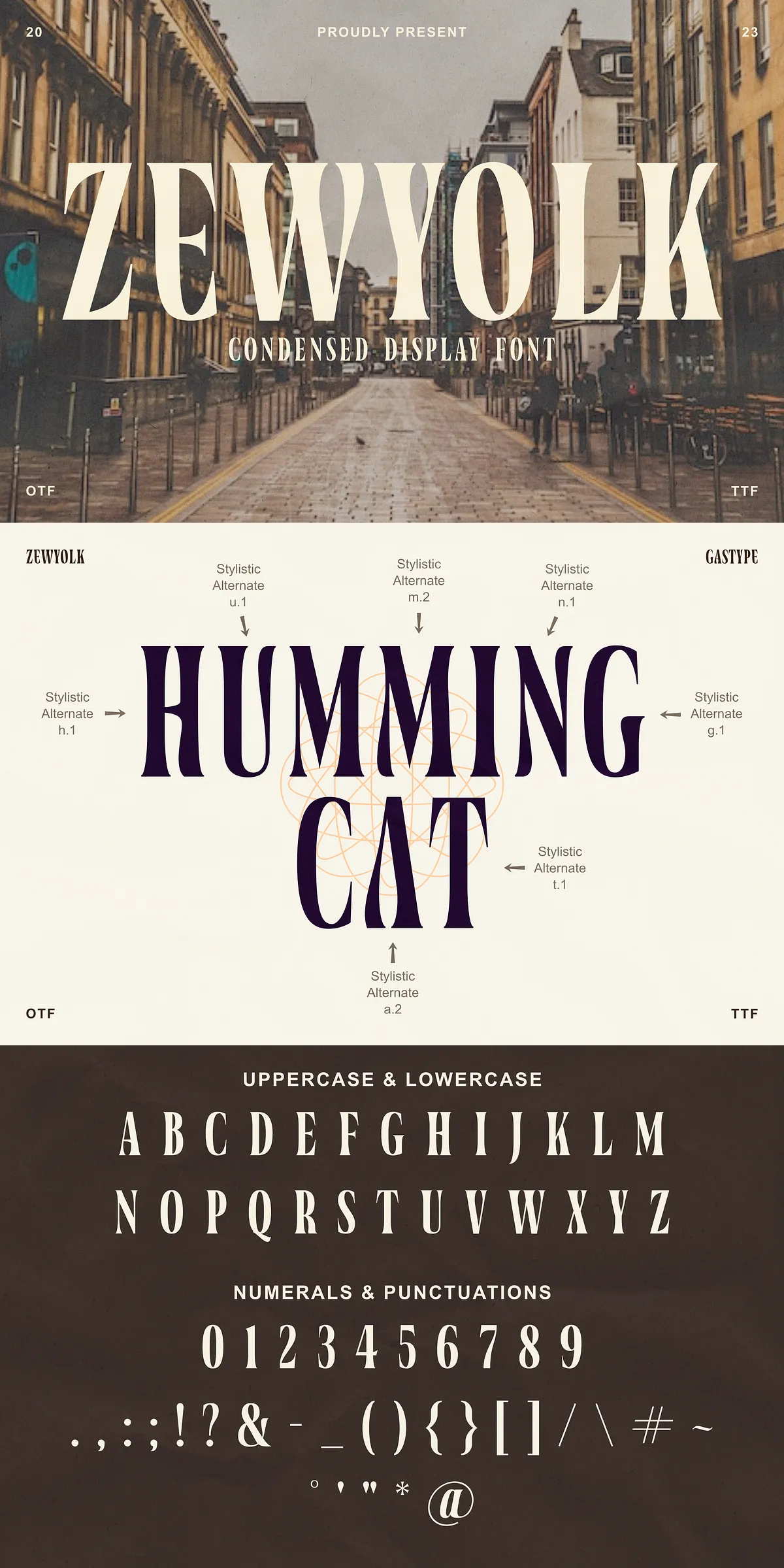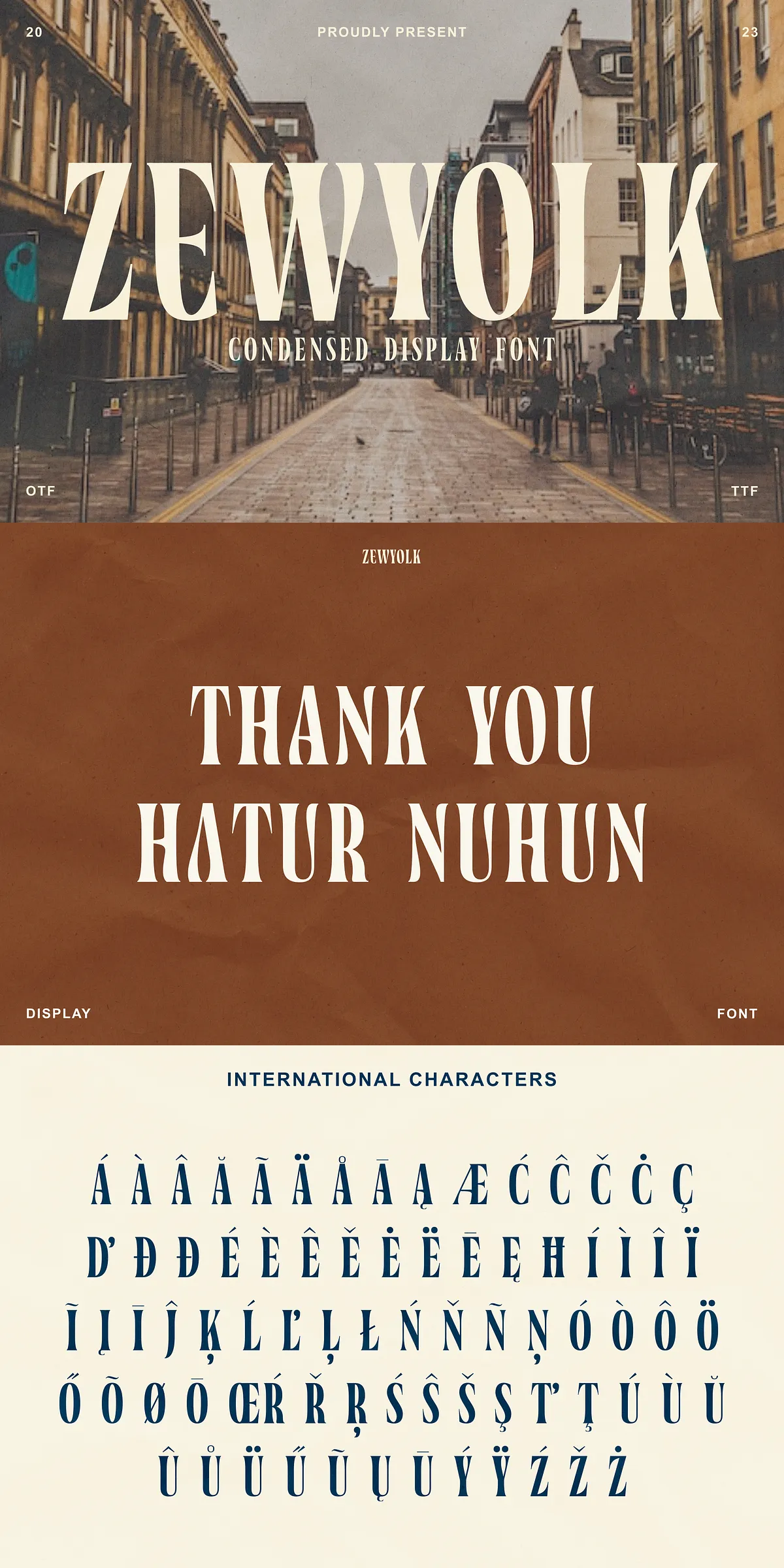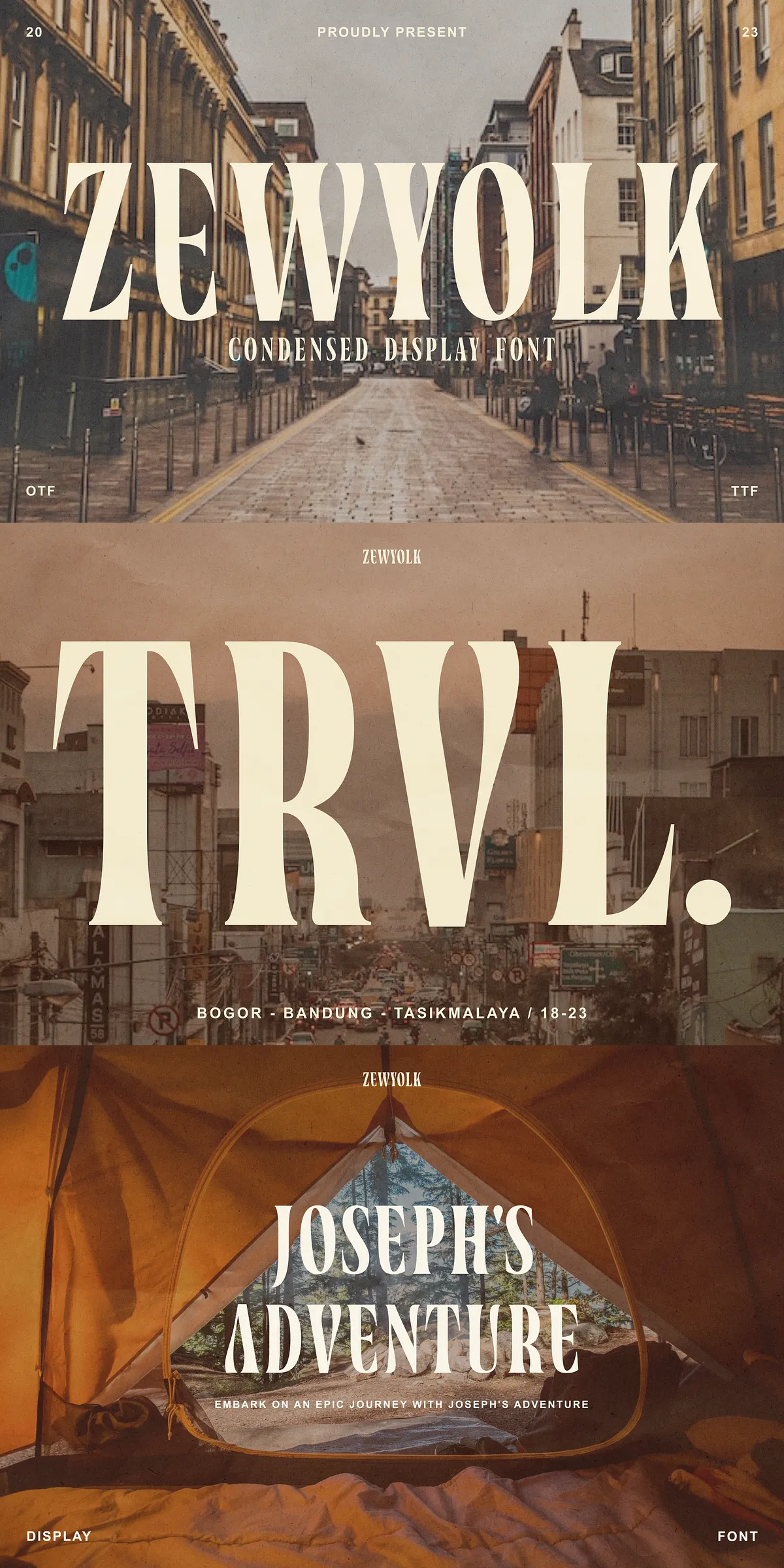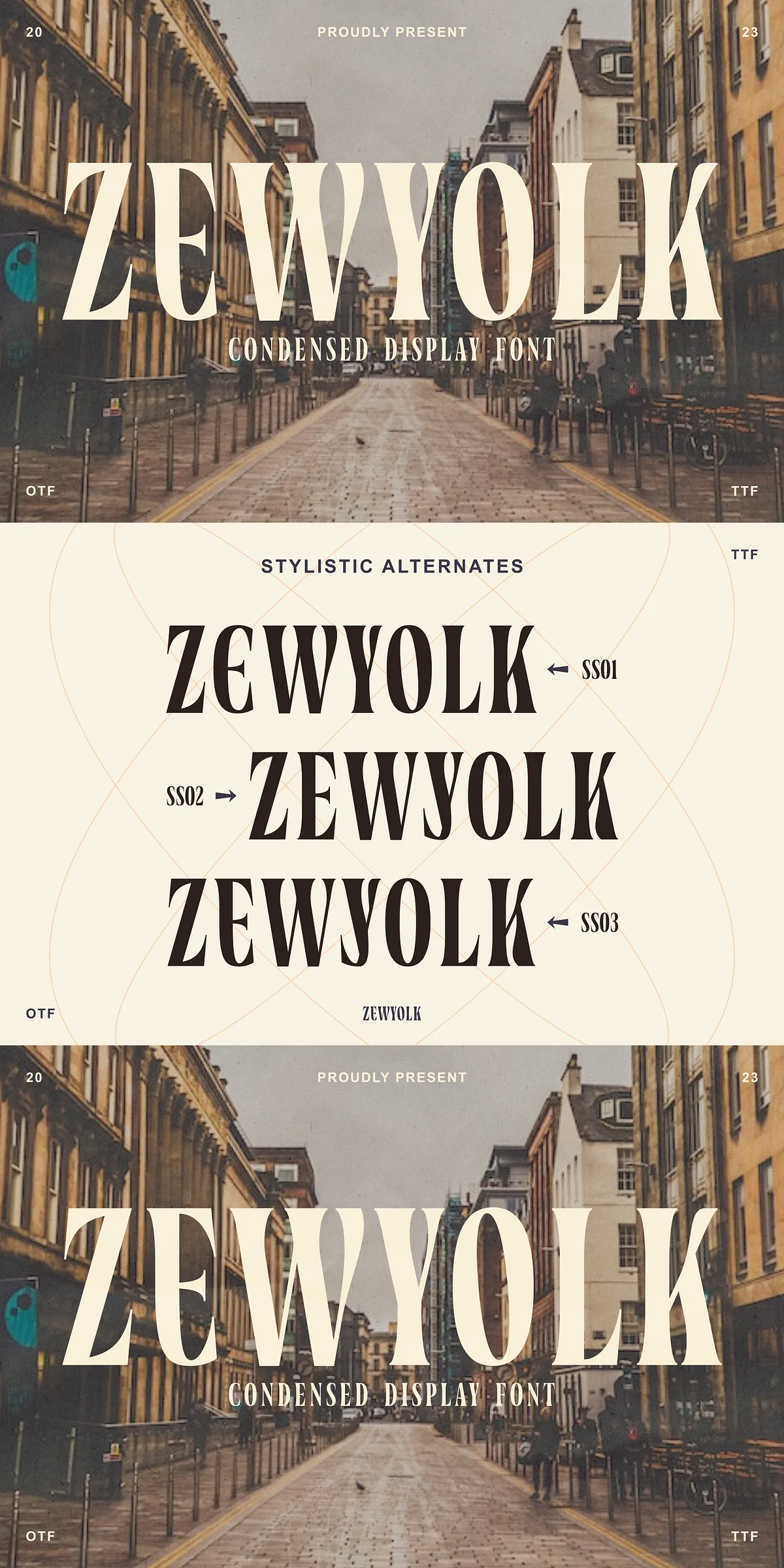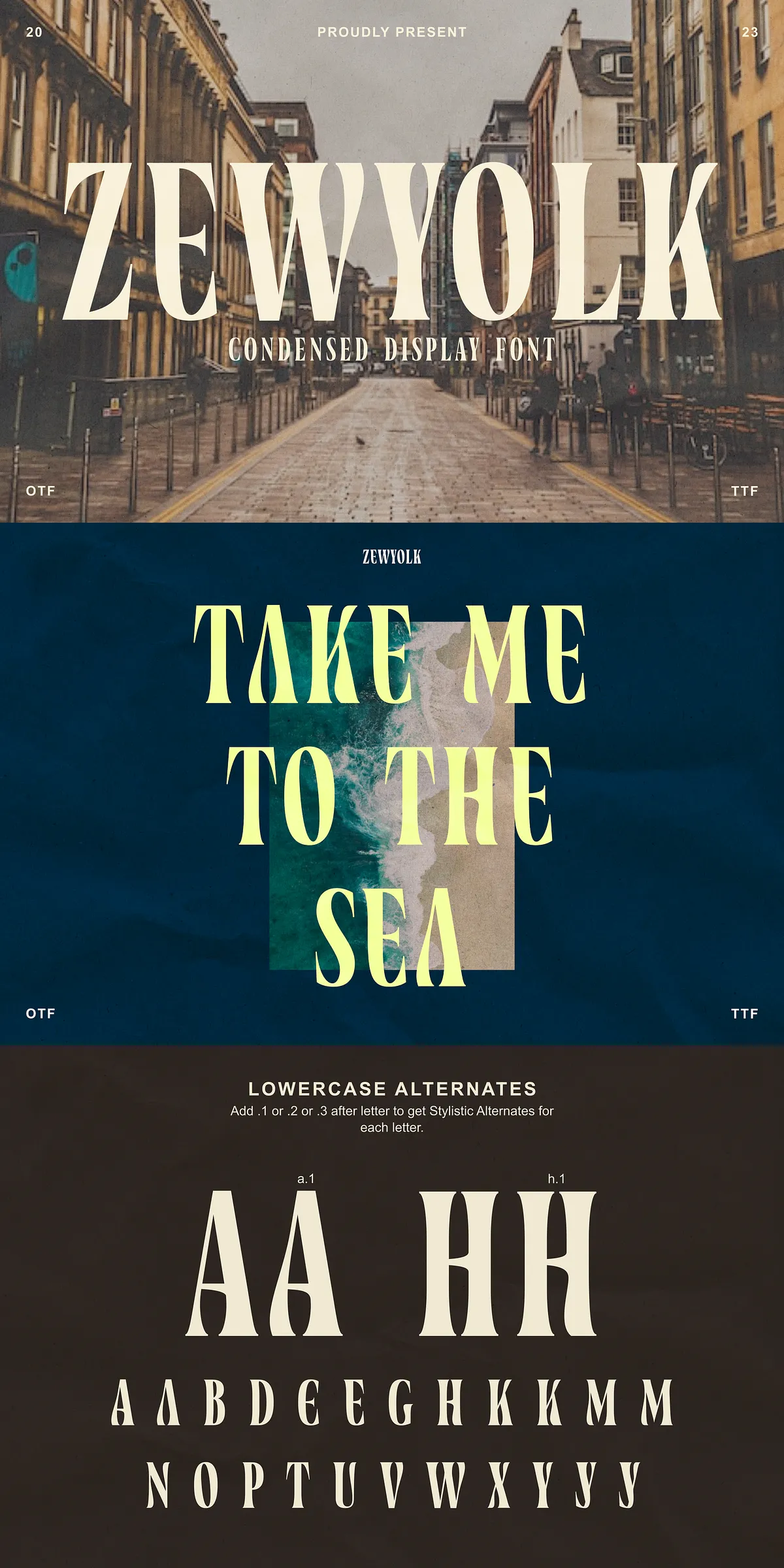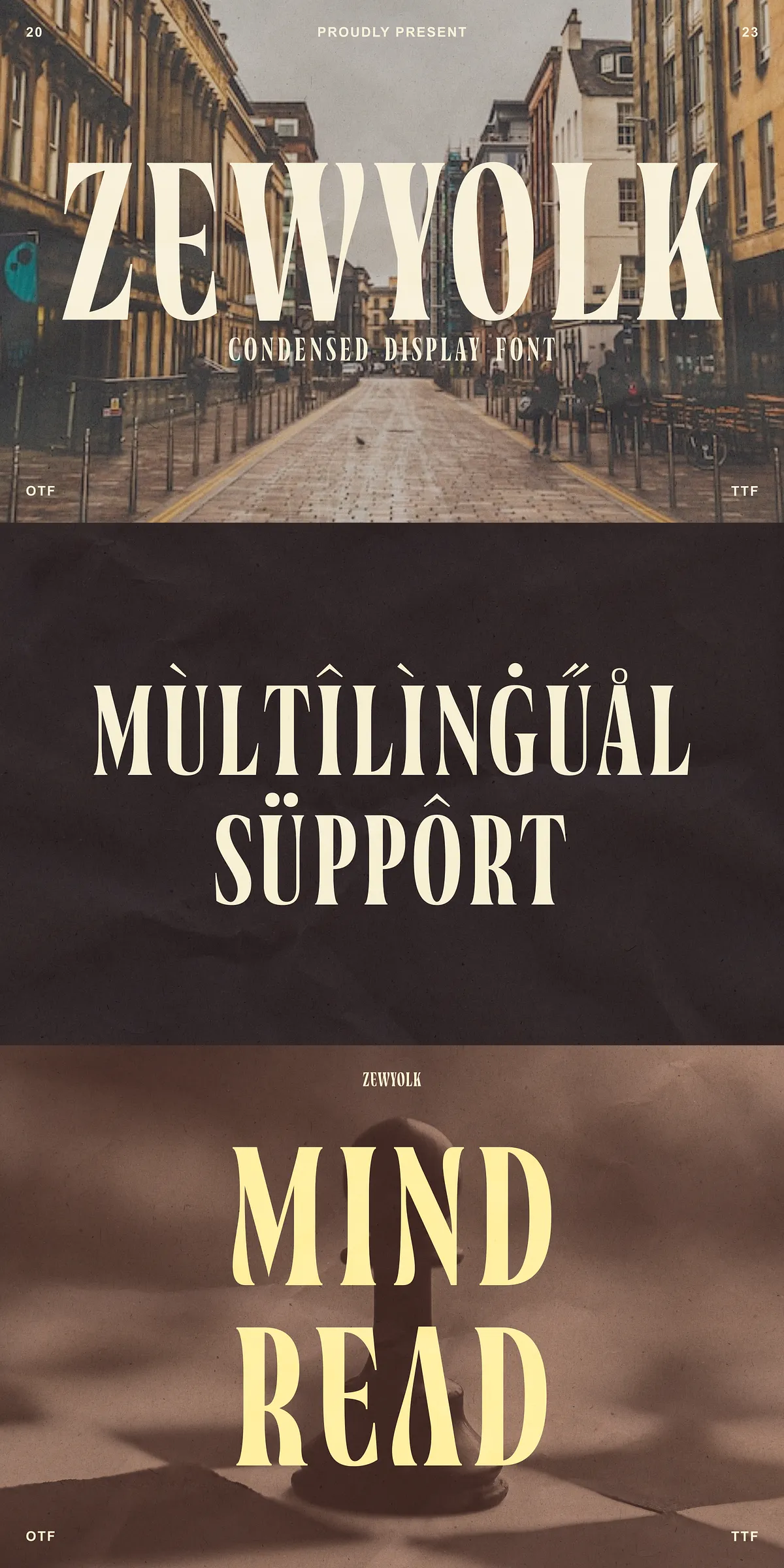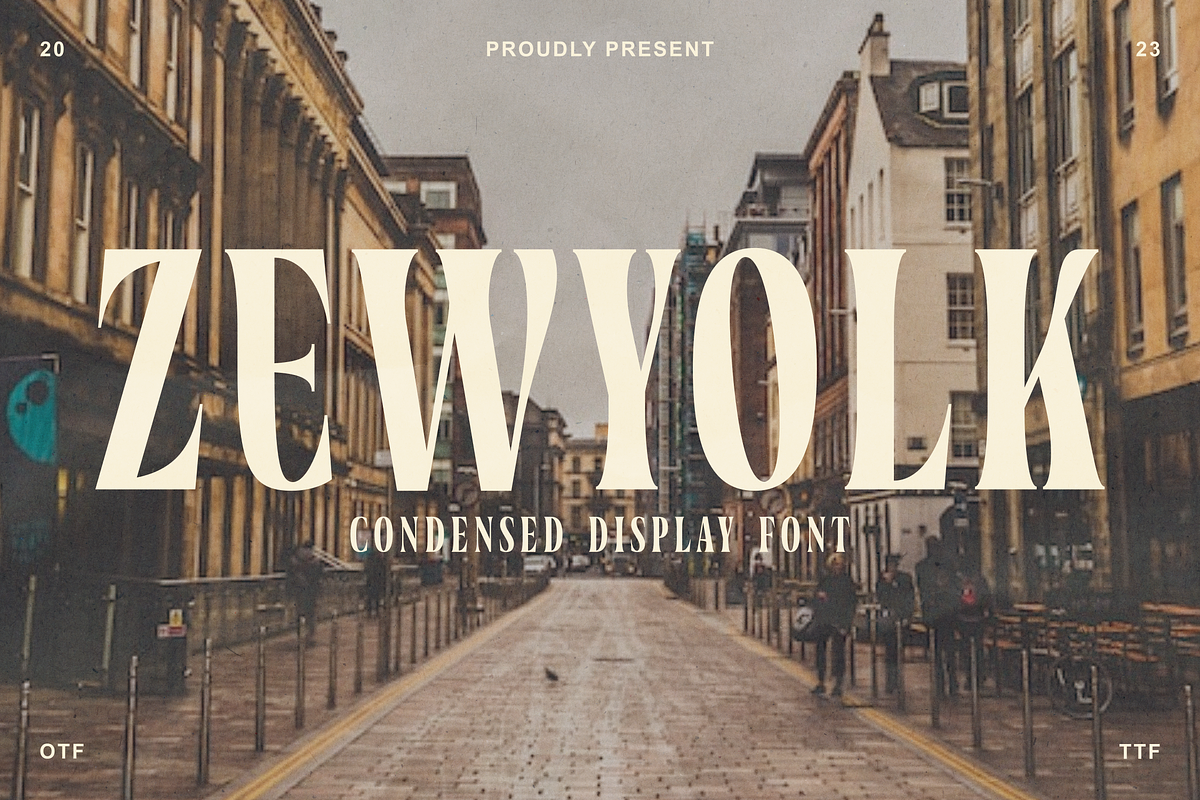
Step into the future of typography with Zewyolk — a razor-sharp, condensed display font engineered for maximum impact and refined sophistication. Every character is meticulously crafted to deliver a sleek, modern aesthetic that commands attention without sacrificing elegance. With its tall, narrow structure and minimalist precision, Zewyolk cuts through visual noise, making it the definitive choice for designers who demand boldness with grace.
Unmatched Visual Impact: The Power of a Condensed Design
Unlike conventional typefaces that spread across the page, Zewyolk compresses form and function into a compact yet powerful profile. This condensed design isn’t just about space-saving — it’s about **statement-making precision**. The narrow letterforms create vertical movement and dynamic rhythm, drawing the viewer’s eye upward and creating a sense of urgency, luxury, and urban sophistication.
Whether you’re designing a luxury brand logo, a high-profile event headline, or a minimalist product label, Zewyolk delivers instant visual authority. Its clean lines and sharp edges eliminate any trace of clutter, ensuring your message is seen — and remembered.
Designed for High-End Applications
Zewyolk thrives in environments where first impressions matter. It’s crafted to perform under pressure, maintaining clarity and elegance even at small sizes or at extreme scales. This makes it ideal for:
- Logo & Brand Identity — Create a distinctive, memorable brand presence with a font that feels upscale and timeless.
- Headlines & Poster Design — Turn a simple phrase into a visual punch with a bold, stylish, and unforgettable presence.
- Product Packaging & Labels — Add a premium feel to cosmetics, tech gadgets, fashion lines, and gourmet products.
- Website Headers & Hero Sections — Dominate digital spaces with typography that is both modern and legible.
- Social Media & Advertising Campaigns — Stand out in content-heavy feeds with a font that speaks boldness and style.
Minimalist Beauty with Maximum Versatility
While Zewyolk is undeniably bold, its minimalist design ensures it never overwhelms. The clean, unadorned letters focus purely on form and function, allowing your message to take center stage. There’s no unnecessary decoration — just pure typographic intent.
The font’s tall x-height gives the typeface a sense of height and elegance, while the narrow proportions deliver visual rhythm and modern flair. It’s a font that looks equally at home in a fashion editorial, a tech startup’s landing page, or a high-end hotel’s signage.
Professional-Grade Typography Features
Designed with real-world use in mind, Zewyolk supports advanced typographic controls for maximum creative freedom:
- OpenType Features — Access ligatures, stylistic alternates, and small caps for refined text control.
- PUA Encoded Characters — Includes special symbols and decorative glyphs mapped to the Private Use Area for instant access.
- Multiple Weights Available — Expand your design range with variations (Regular, Bold, Extra Bold) for layered typographic hierarchy.
Elevate Your Design with Zewyolk — Where Style Meets Substance
Zewyolk isn’t just a font — it’s a design philosophy. It’s for creators who reject mediocrity and seek a typeface that reflects their ambition. It’s for brands that want to be seen as cutting-edge, confident, and effortlessly cool.